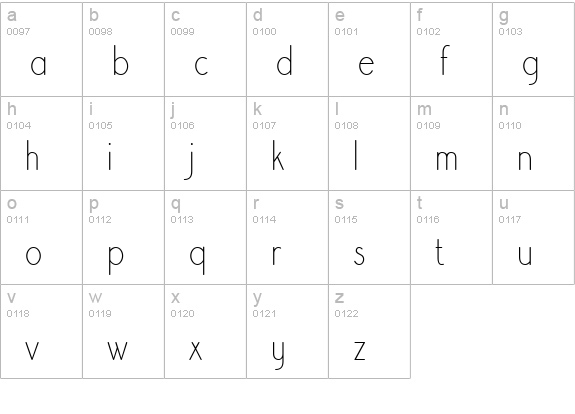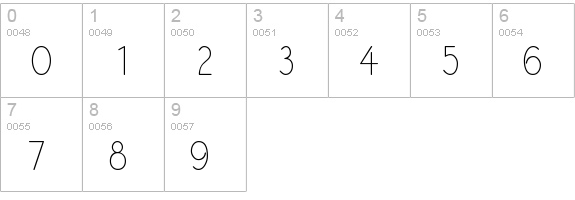
Register Sans BTN CnLt is a remarkable font that combines modernity with elegance. Its sleek lines and subtle curves make it the perfect choice for any project that requires a clean and sophisticated look. This font is incredibly versatile, lending itself to a wide range of design applications, from logos and branding to headlines and body text. What sets Register Sans BTN CnLt apart is its exceptional readability and legibility. The letters are carefully crafted to ensure optimal clarity, even at small sizes. This makes it an excellent choice for websites, digital interfaces, and printed materials, where information needs to be conveyed clearly and efficiently. One of the most appealing features of Register Sans BTN CnLt is that it is free. Yes, you read that right – this high-quality font is freely available for download at FontsMarket.com. This means that you can effortlessly incorporate it into your projects without worrying about any additional costs. Whether you are a professional designer or a hobbyist, this font provides you with an opportunity to elevate your work without breaking the bank. With its clean and modern appearance, Register Sans BTN CnLt possesses a timeless quality that ensures it will remain relevant for years to come. Its versatility, readability, and availability make it a must-have font for anyone looking to enhance their designs. So why wait? Head over to FontsMarket.com and download Register Sans BTN CnLt today to experience the freedom of creating exceptional designs without any constraints.